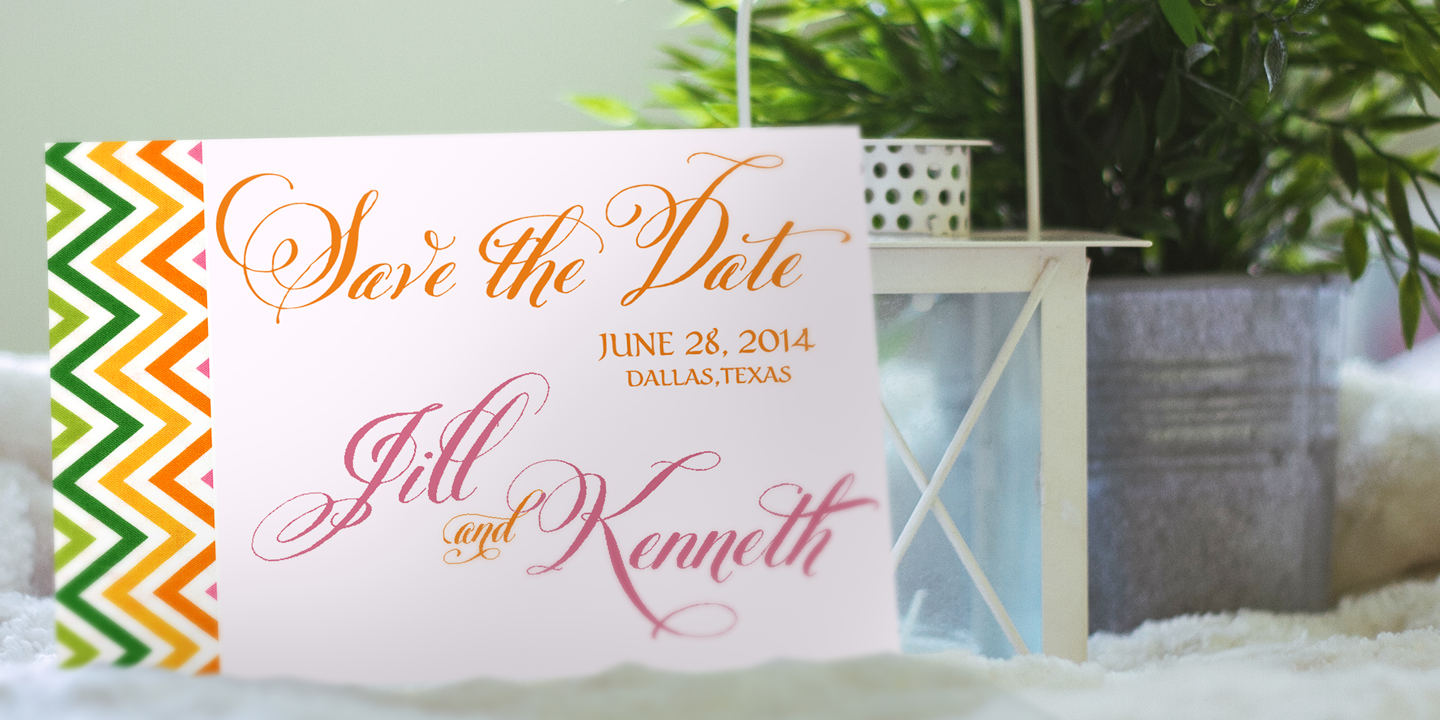
Belluccia Font is perfect for various design applications including elegant wedding invitations, luxury beauty salon branding, sophisticated fashion magazines, premium jewelry packaging, refined cosmetic marketing, graceful personal stationery, upscale feminine boutiques, and beautiful lifestyle communications that require Italian sophistication and feminine elegance.
What makes Belluccia Font truly exciting is its exquisite embodiment of Italian elegance and feminine beauty that captures the essence of "bellezza" - the Italian concept of beauty that encompasses both physical grace and inner radiance, reflecting the sophisticated charm and timeless elegance that defines Italian design and feminine sophistication. This graceful typeface features flowing letterforms with subtle Italian-inspired flourishes that evoke images of Tuscan vineyards, elegant Roman architecture, and the refined aesthetic sensibilities that make Italian design universally admired for its perfect balance of beauty and functionality. The font's beautiful character reflects the grace and sophistication that define Italian feminine style, making it perfect for brands that want to communicate Italian elegance, feminine beauty, and the timeless appeal of sophisticated European design traditions. Its beautiful appearance creates immediate associations with Italian sophistication and feminine grace.
The Belluccia Font family includes multiple weights and elegant variations designed to enhance beautiful communication. The collection features Light, Regular, Medium, and Bold weights, each maintaining the font's characteristic Italian appeal while offering different levels of elegant presence. The family also includes decorative elements inspired by Italian design motifs, graceful flourishes that enhance feminine significance, and stylistic alternates that add beautiful personality and sophisticated customization. Additional features include contextual ligatures and beauty sets that create flowing, elegant text arrangements perfect for luxury and feminine applications.
Beauty and fashion professionals consistently choose Belluccia Font Free Download for projects requiring authentic Italian character and feminine credibility. The font's beautiful nature makes it particularly effective for luxury fashion brands, beauty salons, and sophisticated lifestyle companies targeting women who appreciate Italian elegance and feminine sophistication. Its excellent readability across various applications ensures effective communication while maintaining the distinctive beautiful character that conveys Italian authority and feminine elegance.
The advanced OpenType capabilities of Belluccia Font include contextual alternates, stylistic sets, and comprehensive character support that accommodates Italian terminology and beauty expressions while preserving the font's authentic elegant character. The technical precision ensures consistent beautiful appearance across different luxury applications and feminine platforms.
For creative professionals seeking a typeface that embodies genuine Italian heritage and feminine sophistication, Belluccia Font offers unparalleled beautiful appeal and elegant charm. Its ability to convey Italian authority while maintaining functional communication makes it invaluable for fashion brands, beauty companies, and luxury lifestyle organizations. The font's distinctive beautiful character ensures memorable elegant impact across all applications, creating powerful visual identity systems that celebrate the timeless beauty of Italian design and the sophisticated femininity that continues to inspire fashion, beauty, and lifestyle brands seeking authentic Italian elegance and graceful feminine expression.